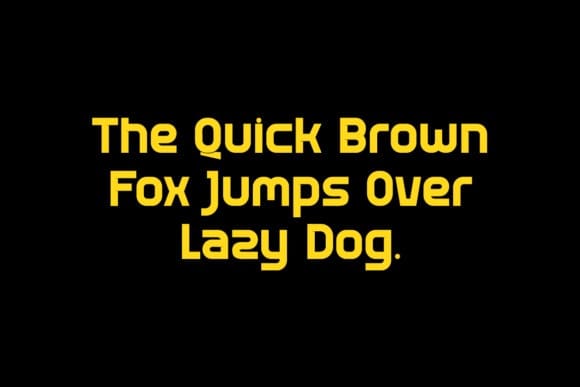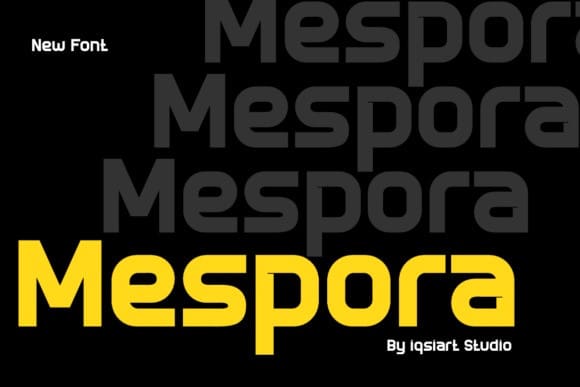
Mespora Font
Mespora Font is a bold and assertive sans serif font. No matter the topic, this font will be an incredible asset to your fonts’ library, as it has the potential to elevate any creation.